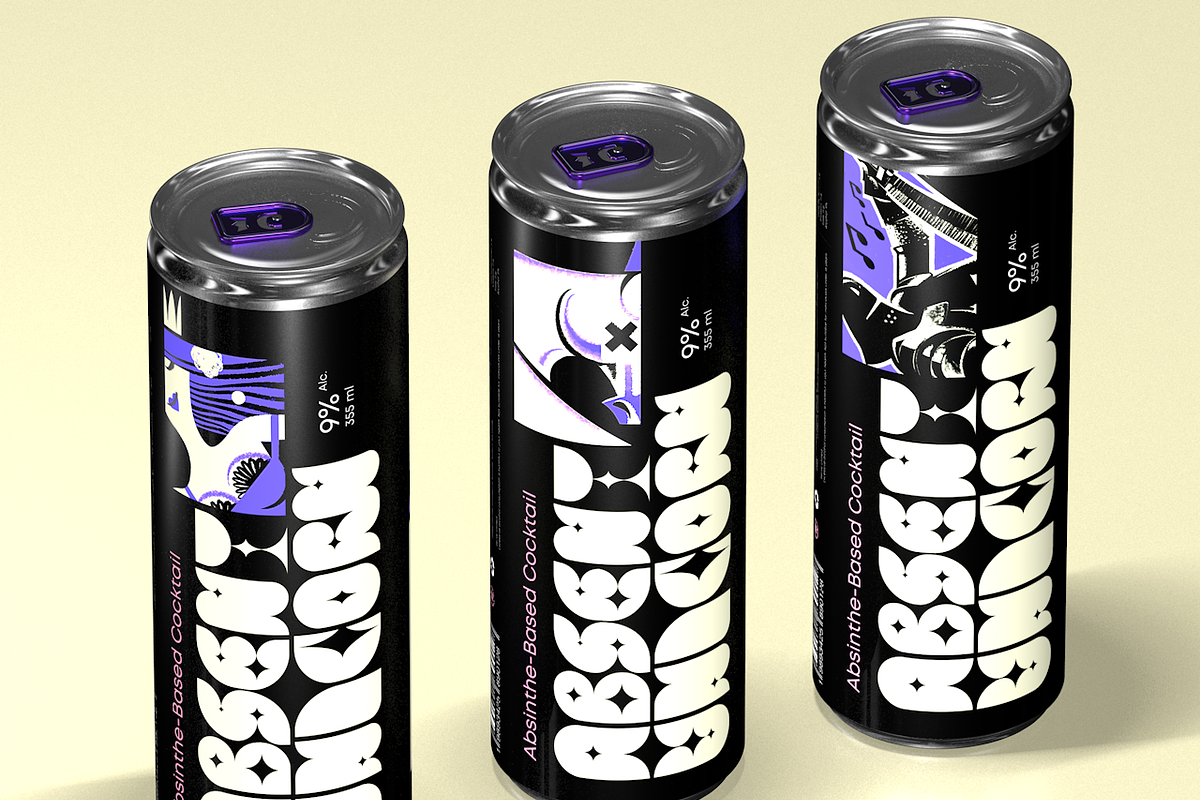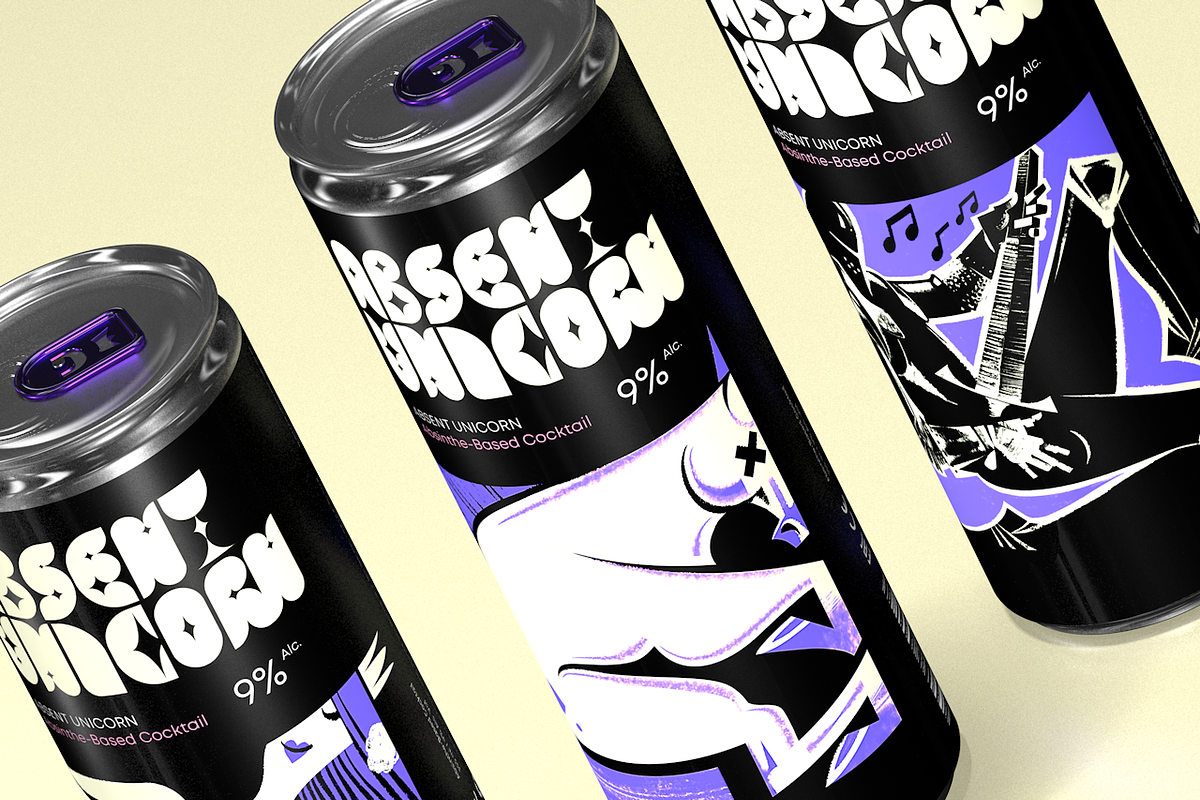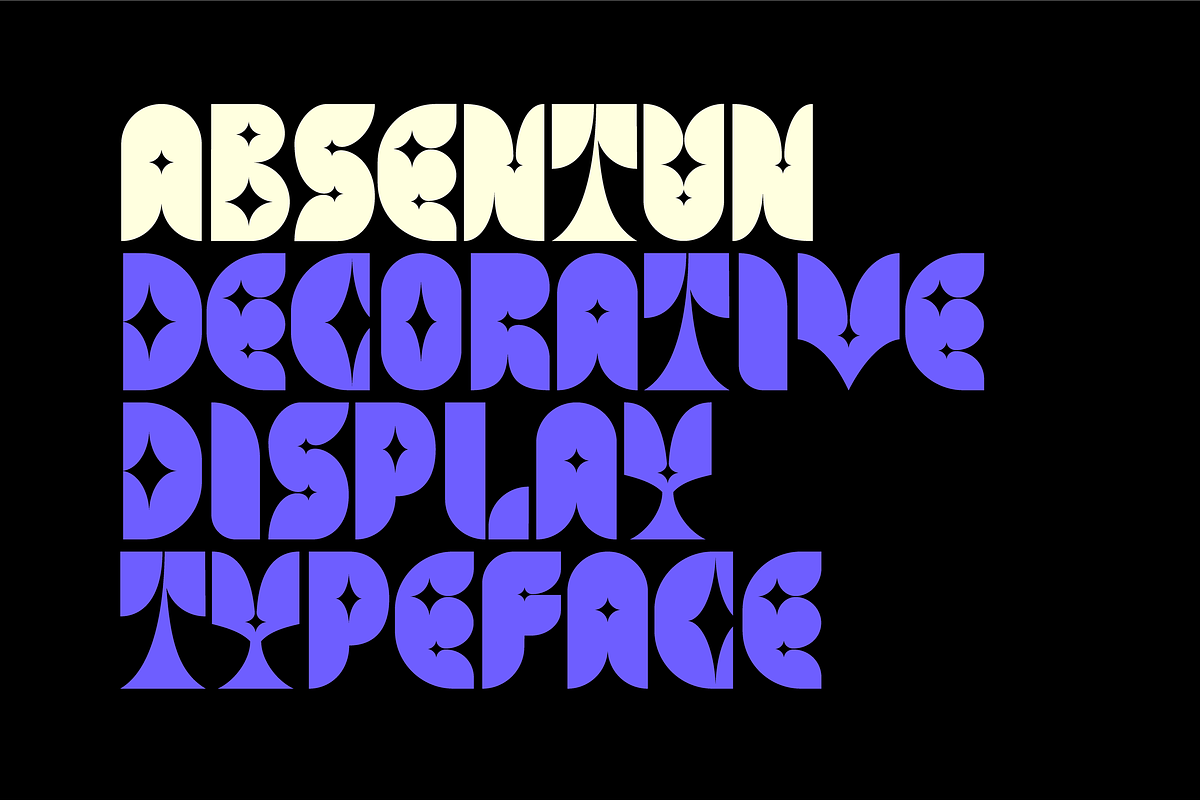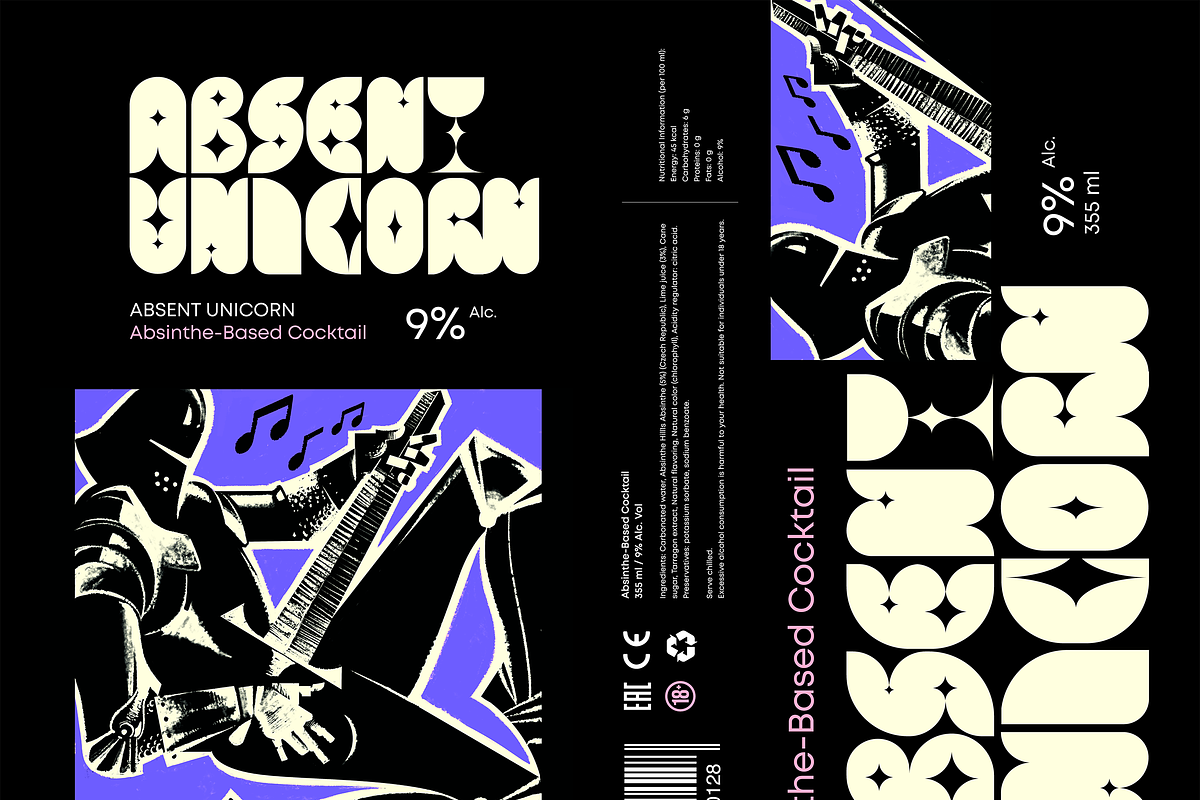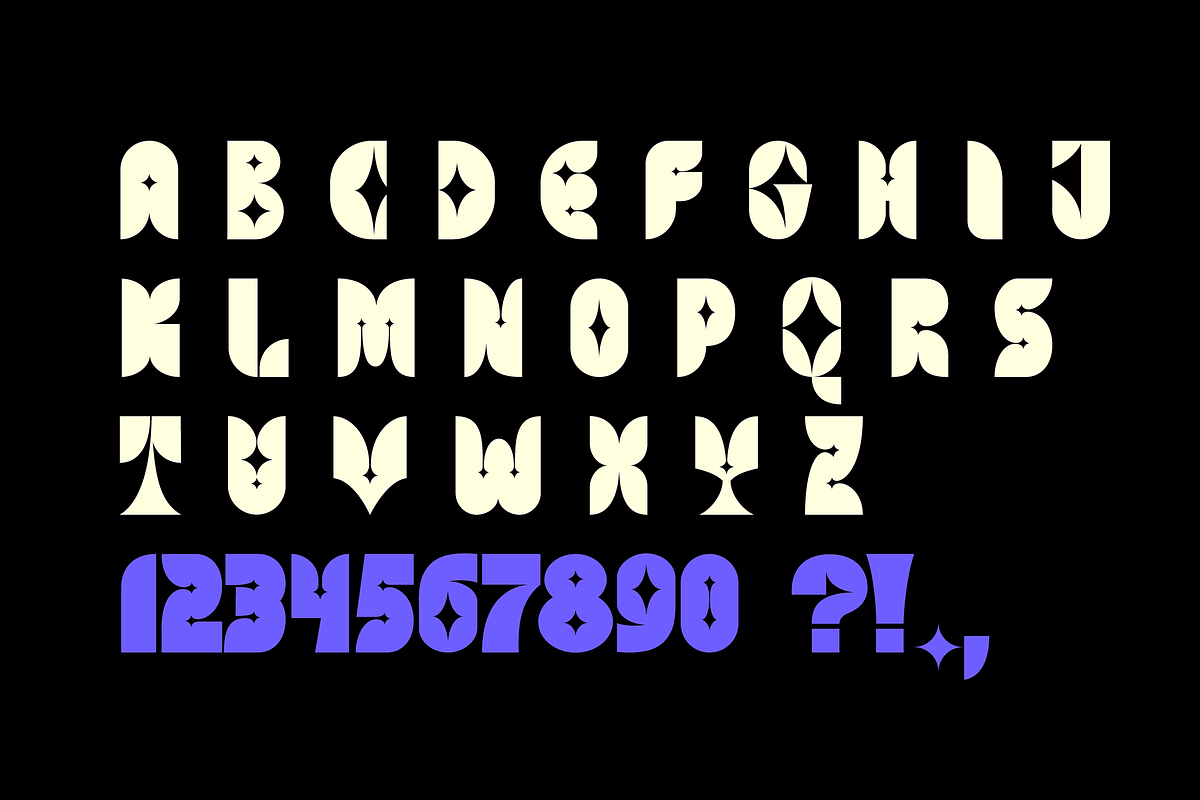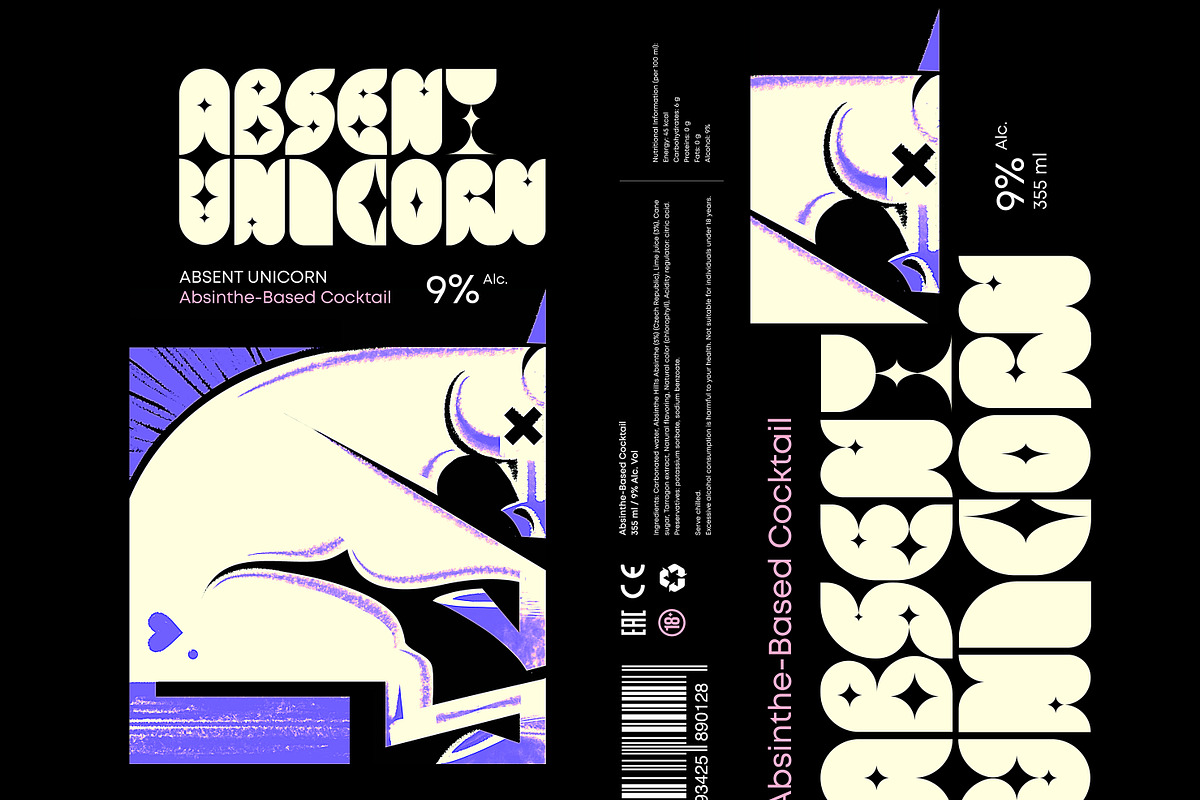
ABSENTUN – FREE Decorative Display
ABSENTUN – FREE Decorative Display Fantasy Typeface.
Absentun is a unique fantasy display typeface designed for striking titles, magical branding, and creative packaging. Its bold decorative shapes and star-inspired details make it stand out from ordinary typefaces, turning every word into a piece of art. Perfect for projects that need a touch of mystery, fantasy, or enchantment.
This font combines strong geometric forms with ornamental details. For example, the letter O transforms into a mystical circle with a star inside – a detail that immediately adds character and storytelling to your design.
- Fantasy & book covers
- Creative packaging and product design
- Logo design for craft brands, cosmetics, or mystical products
- Posters, titles, and social media graphics
- Branding that needs a unique and memorable look
Bring your designs into a magical world with Absentun – a font that feels like it came straight out of a fairytale universe.